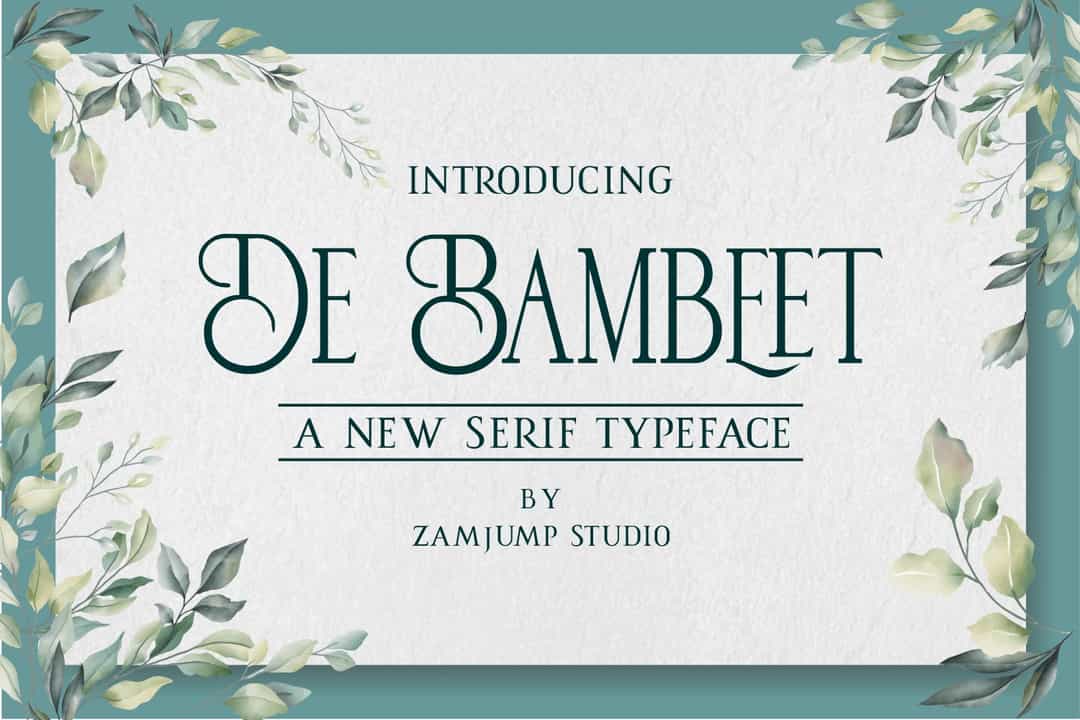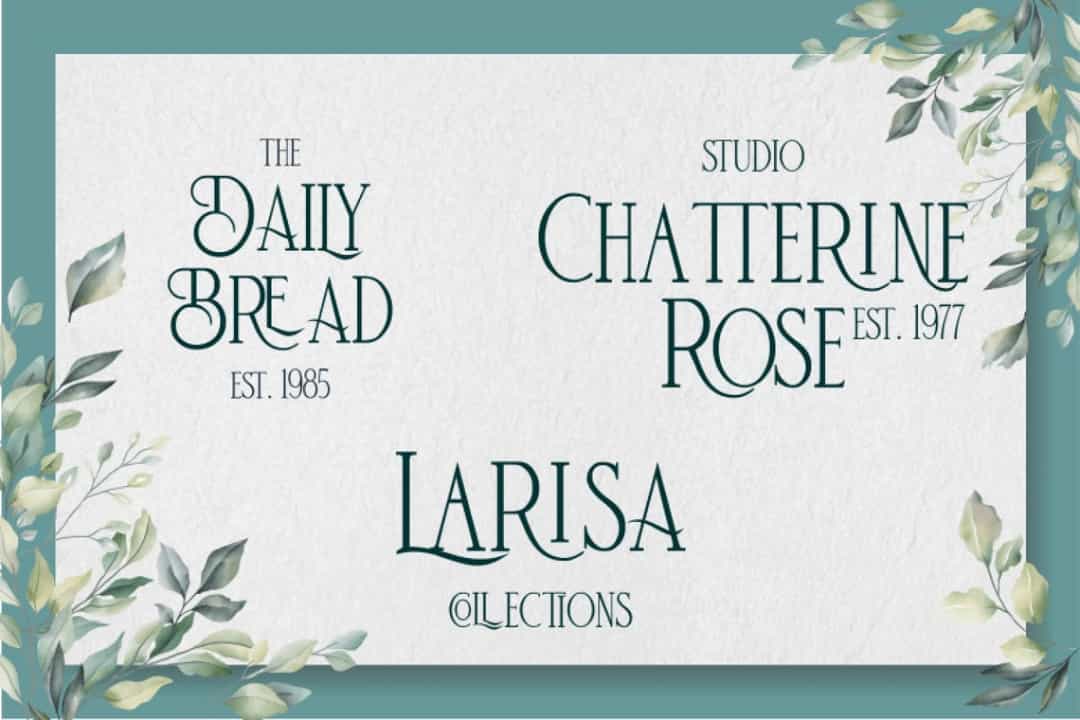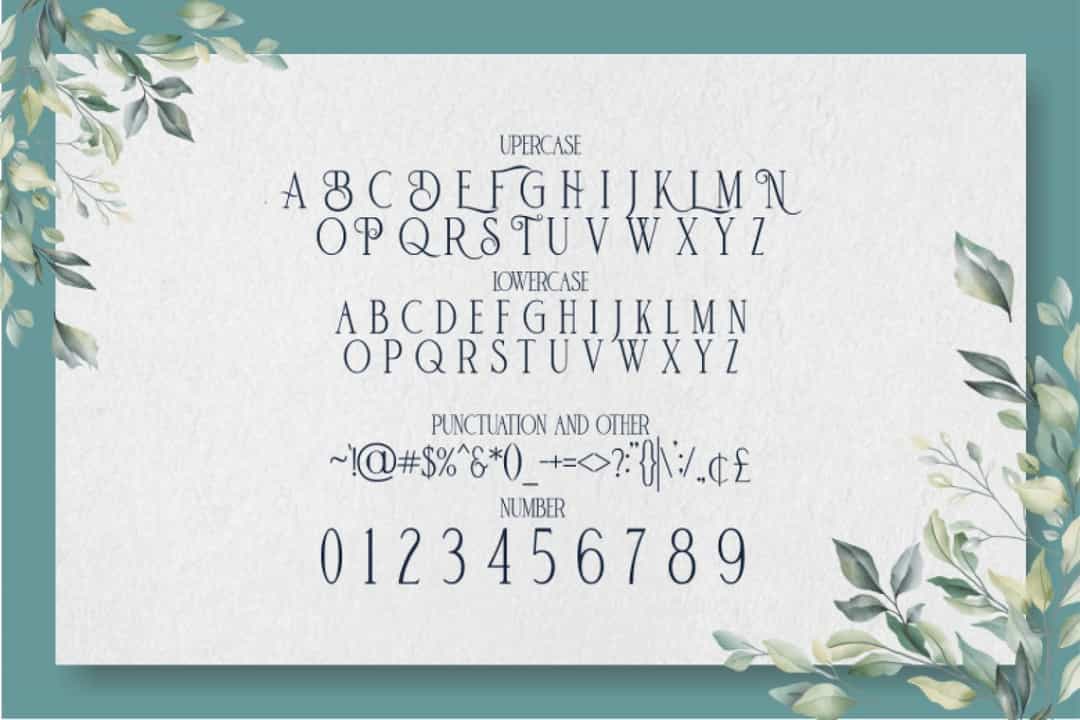
De Bambeet is a elaborate serif font when comparing with other serif fonts. This also includes the one that can be used in multiple languages, the alternative and also the ligature. It is a good design that can be used in creating any kind of wedding invitations, posters and many other crafty products books, book covers, t-shirts, photography and packaging of products and other media use.